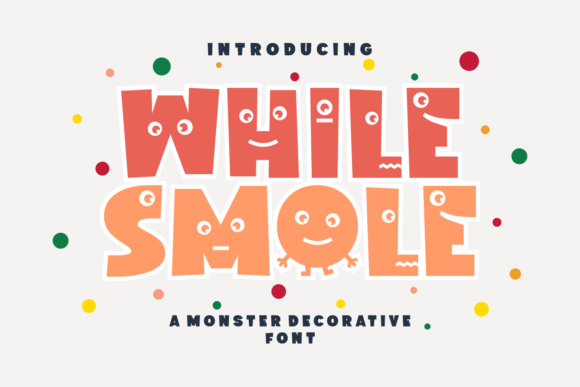
Introducing While Smole Font - Your Key to a Whimsical World of Typography
Welcome to the realm of enchantment, a realm where letters come alive with playful monster eyes and jubilant smiles. Here, we introduce the While Smole Font, a decorative masterpiece that transforms ordinary text into an extraordinary adventure.
Created by the visionary Feri (7NTypes), While Smole is not just a font; it's a gateway to a universe of captivating designs, an invitation to infuse joy and wonder into your creative endeavors. From whimsical invitations to enchanting children's books, this font carries the magic key to unlock a world of boundless imagination.
With each stroke of the While Smole Font, you're not just typing words; you're painting smiles onto the page. Its cheerful and whimsical nature captivates and delights audiences of all ages, making it the perfect companion for any project that seeks to spread laughter and happiness.